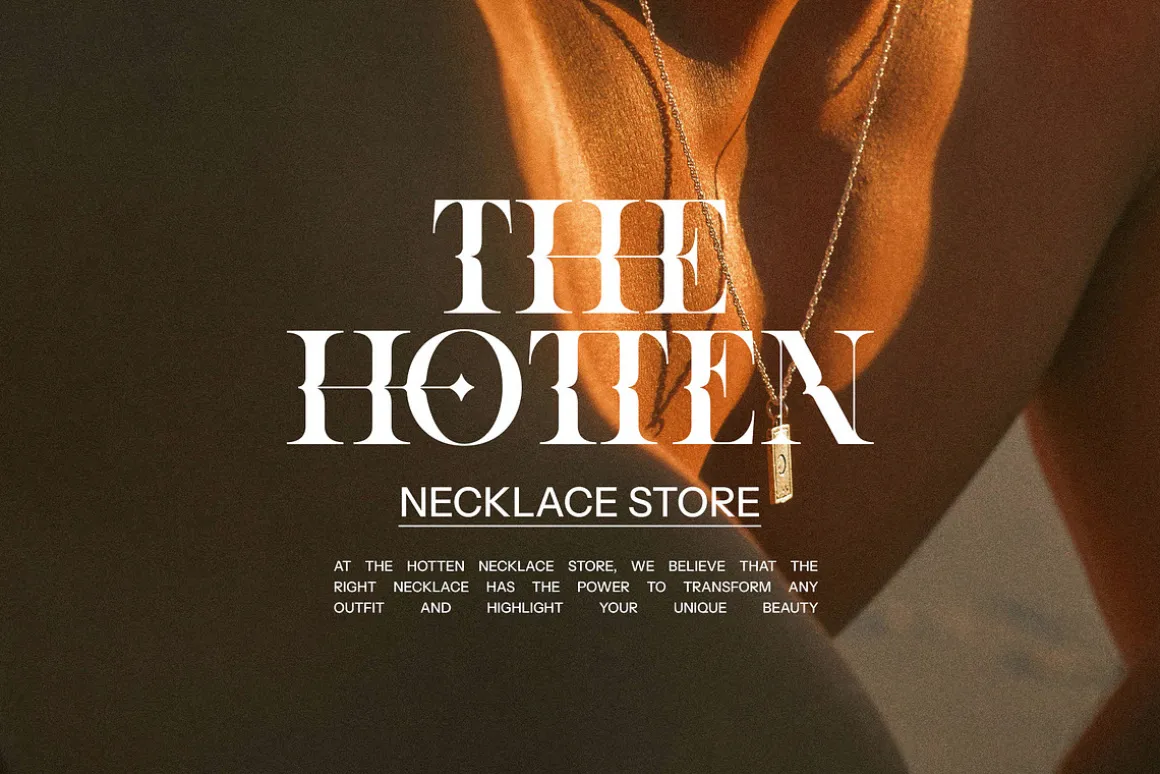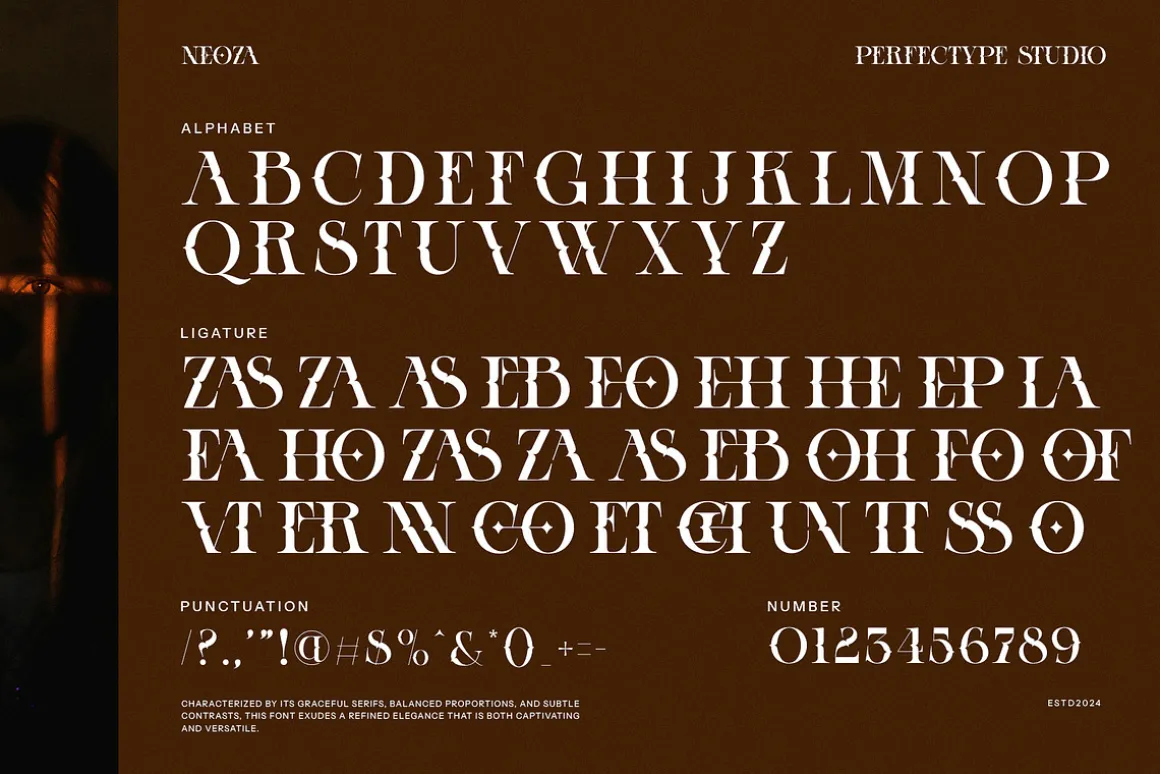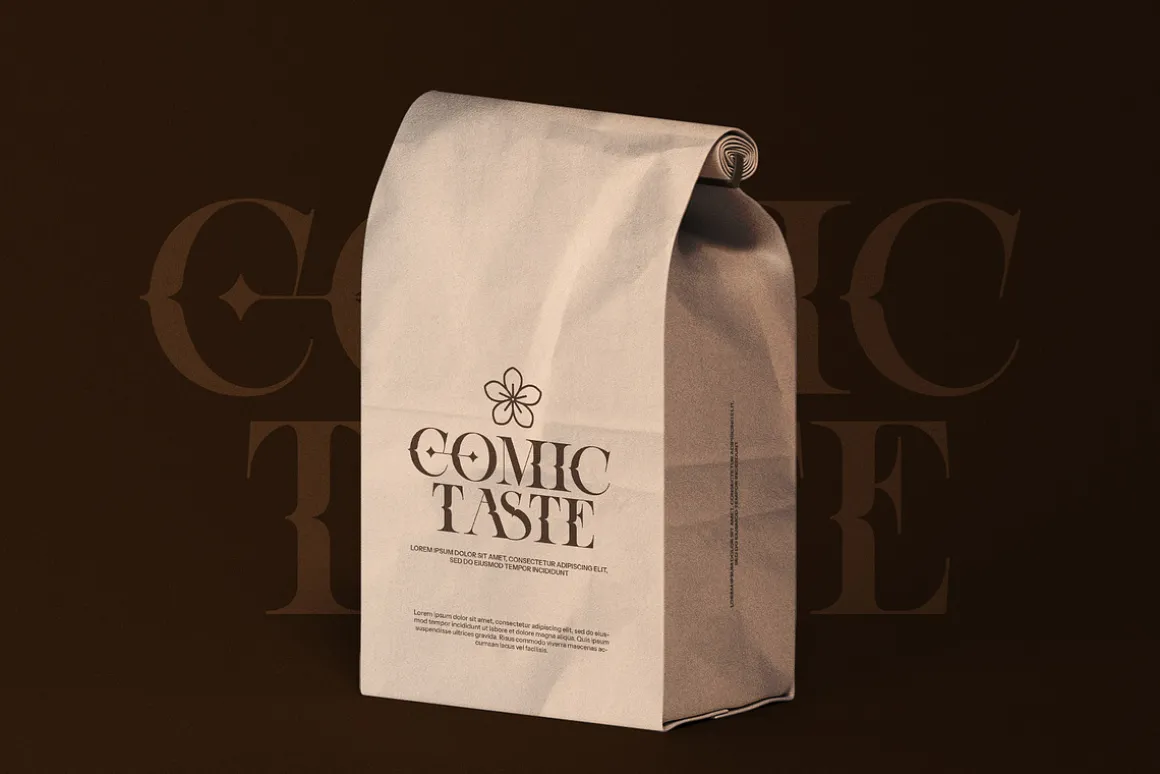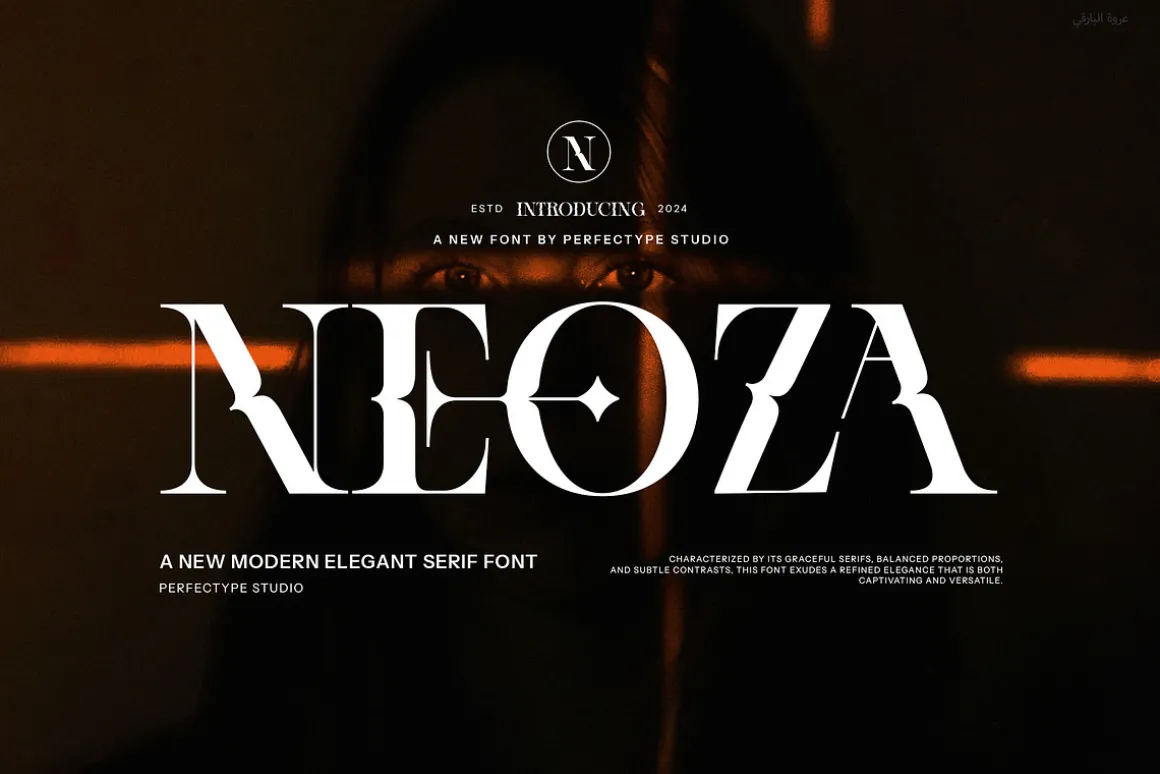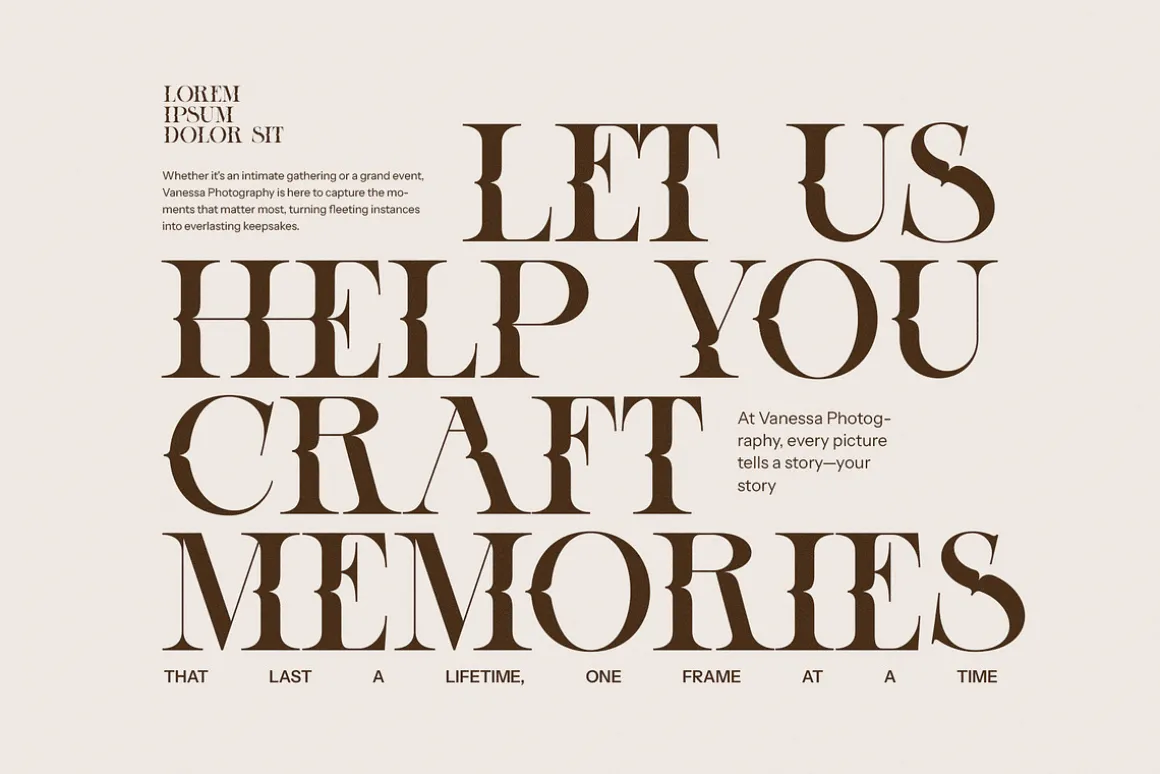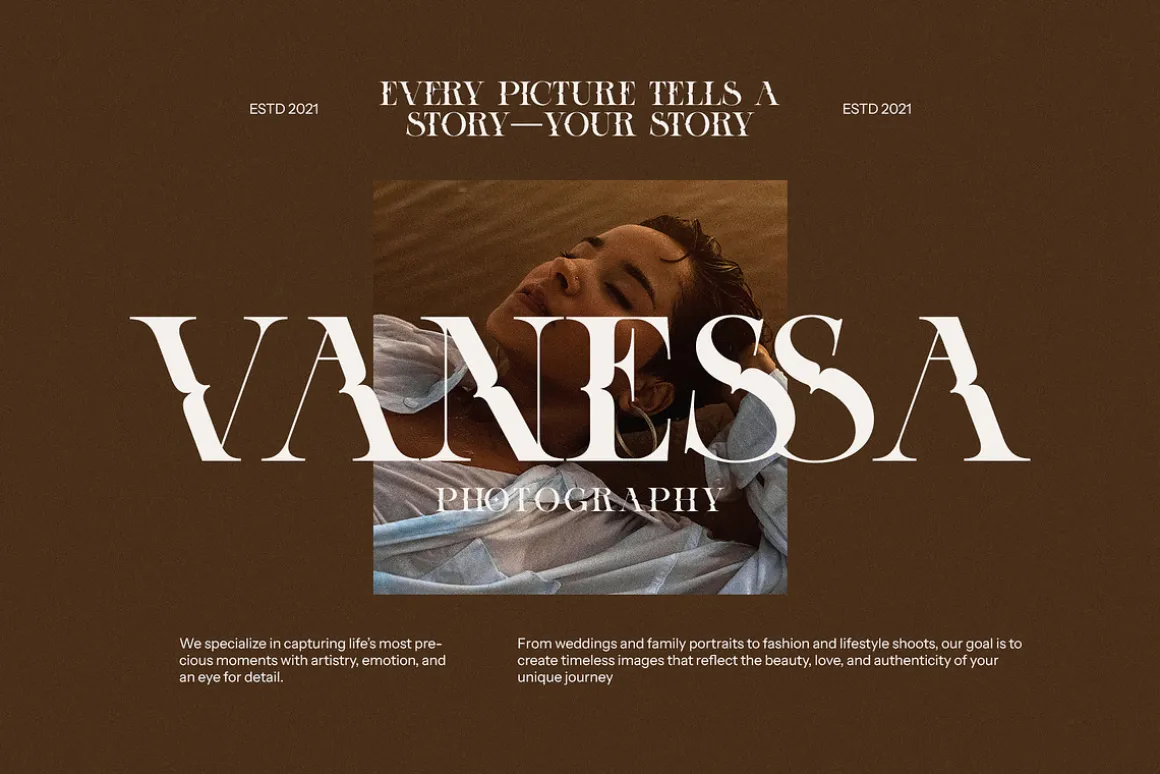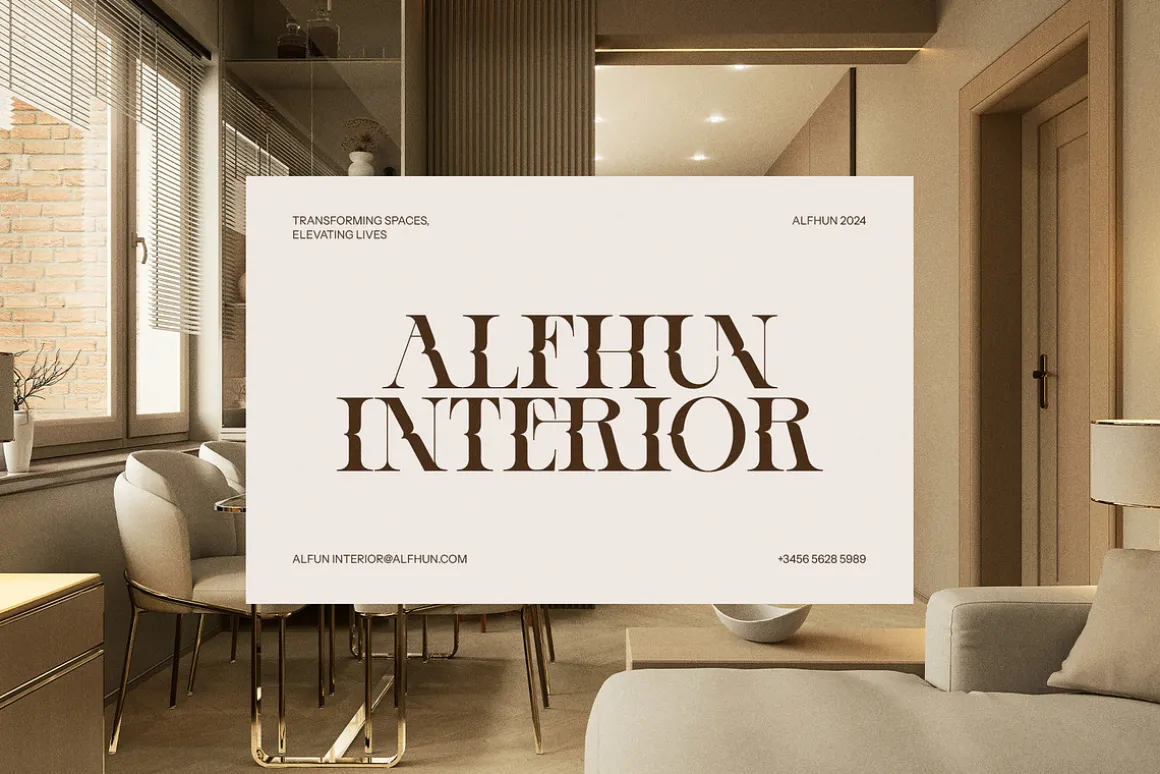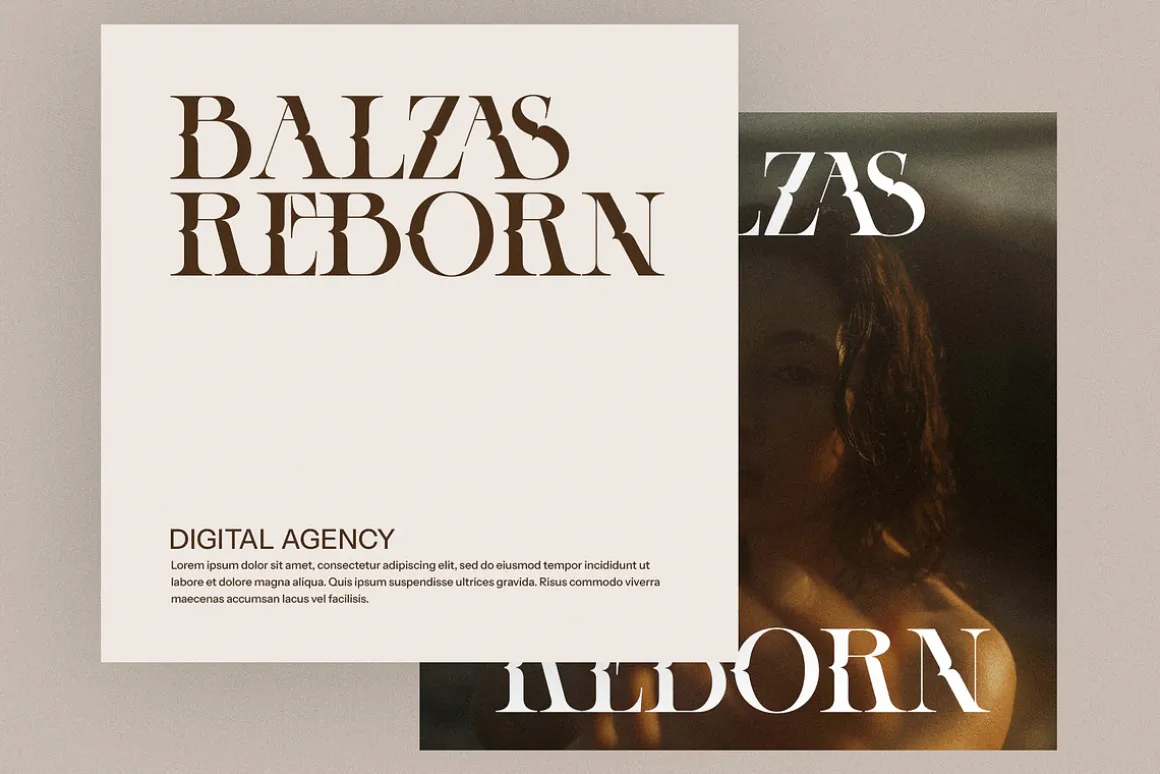
Neoza Elegant Serif Font
Introducing Neoza Elegant Serif Font—a modern masterpiece that redefines the boundaries of traditional serif typography. With its unique design, Neoza captures the essence of contemporary elegance while infusing a distinct personality into every letter. This font is a celebration of style, combining sleek lines and refined serifs to create a visually striking typeface that commands attention and exudes sophistication.
At the heart of Neoza’s allure is its exceptional ligature feature. These carefully crafted ligatures transform ordinary text into a fluid visual experience, seamlessly connecting letters and enhancing the overall aesthetic. This unique characteristic not only elevates the font’s elegance but also introduces a dynamic quality that brings your typography to life. Each ligature adds a layer of artistry, allowing you to create captivating compositions that resonate with modern audiences.
Neoza is incredibly versatile, making it an ideal choice for a broad range of applications. Whether you’re designing a distinctive logo, establishing a cohesive branding strategy, creating impactful magazine layouts, or developing enticing product packaging, Neoza adapts to your creative needs with ease. Its modern flair is perfect for high-end branding as well as lifestyle products, ensuring that your message is communicated with clarity and style. The font’s unique character set allows it to stand out in any context, making it a valuable asset for both print and digital designs.
Functionality meets aesthetics in Neoza. The font is designed for legibility at various sizes, ensuring your text remains crisp and engaging, whether it’s featured prominently in a headline or woven into the details of body text. This attention to readability ensures that your message is conveyed effectively, making it suitable for a wide array of projects. Additionally, Neoza’s extensive character set supports multilingual use, enhancing its versatility for global applications.
Unlock the potential of your designs with Neoza Elegant Serif Font and let it inspire your creativity. With every letter, you can craft narratives that are both visually stunning and conceptually rich. Whether you’re launching a bold new brand, designing an elegant editorial piece, or curating a sophisticated marketing campaign, Neoza offers the modern elegance you need to make a lasting impression. Embrace the unique charm of Neoza, and watch as your typography transforms into a powerful storytelling tool that captivates and engages your audience.